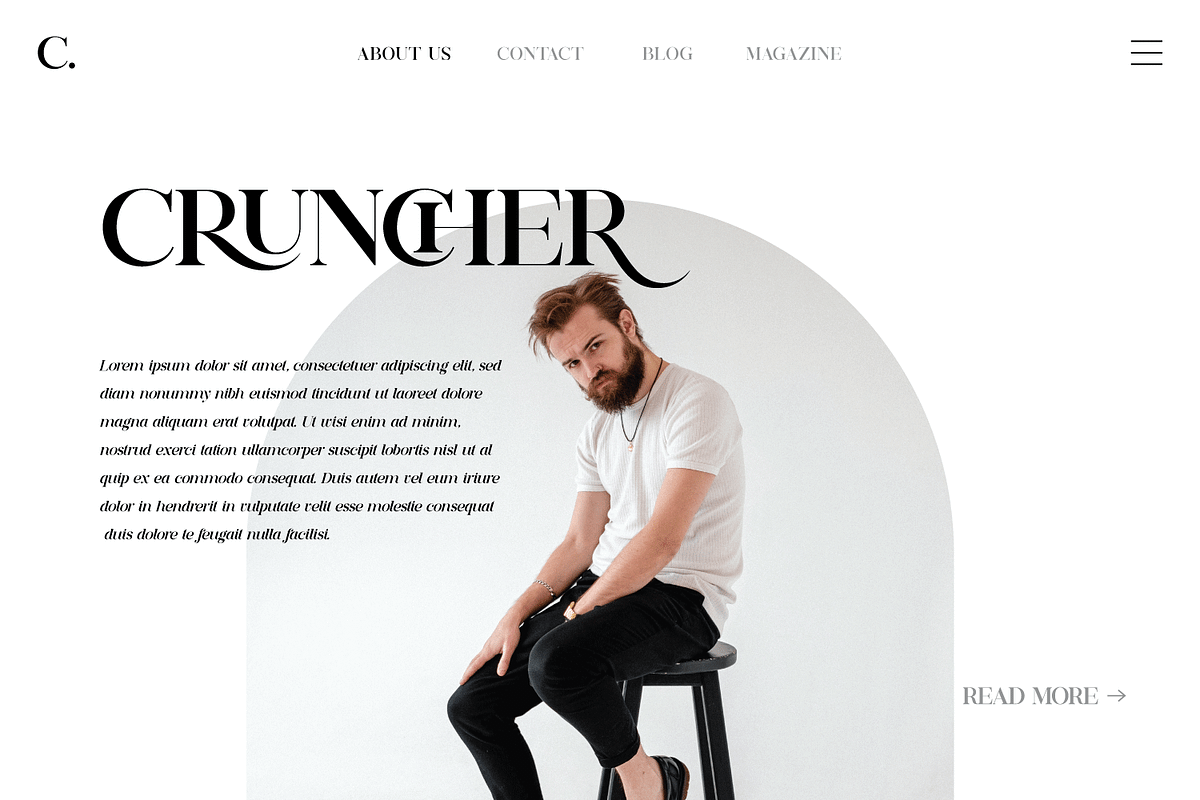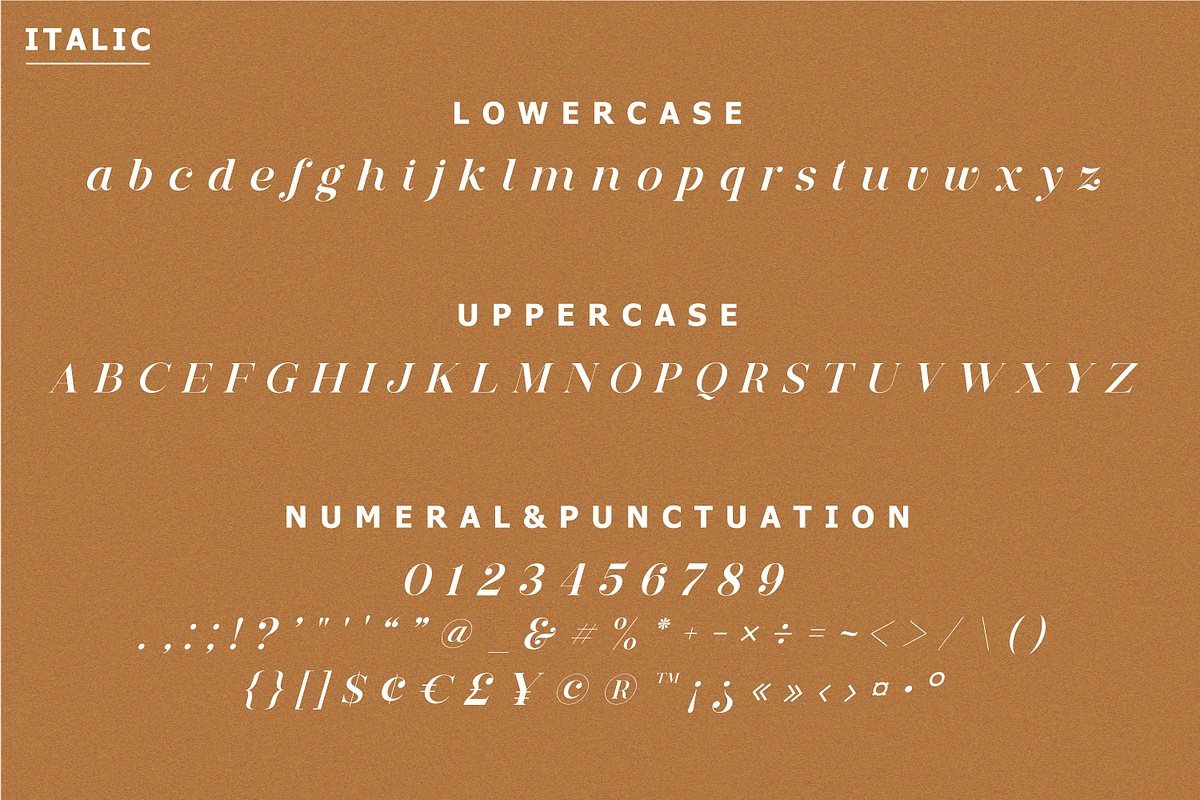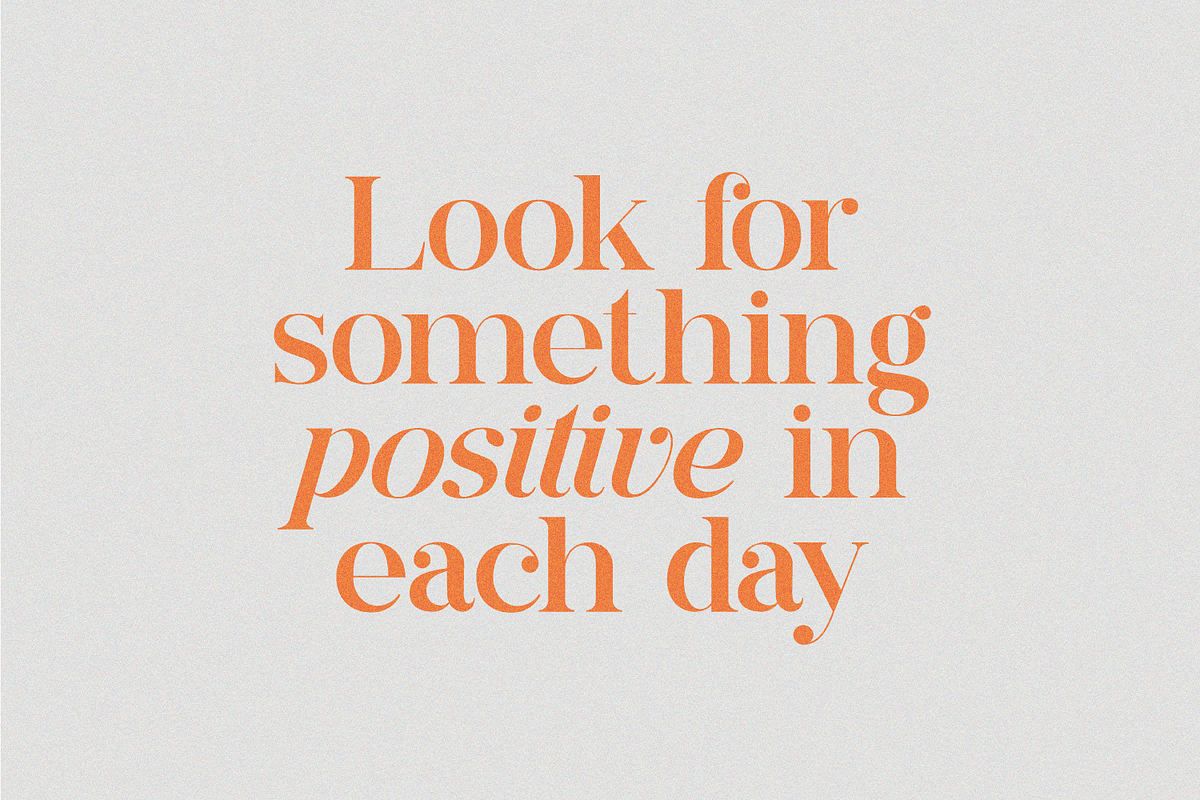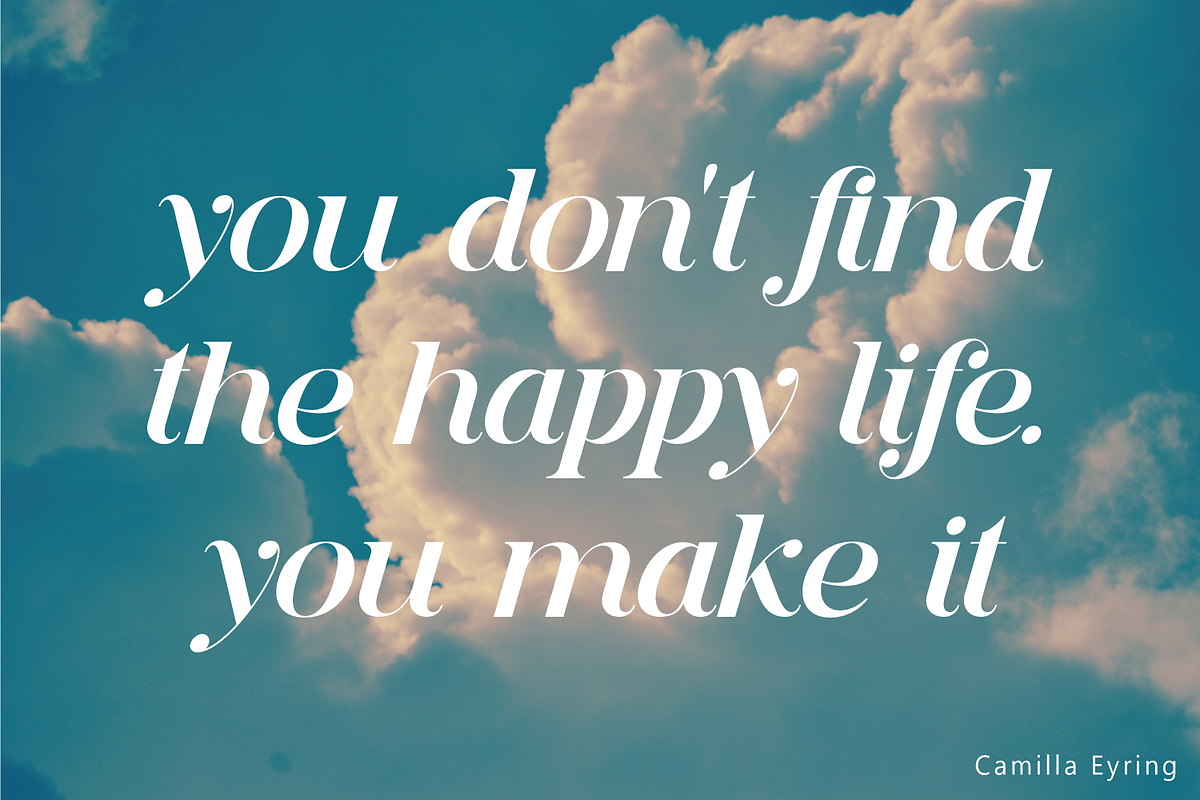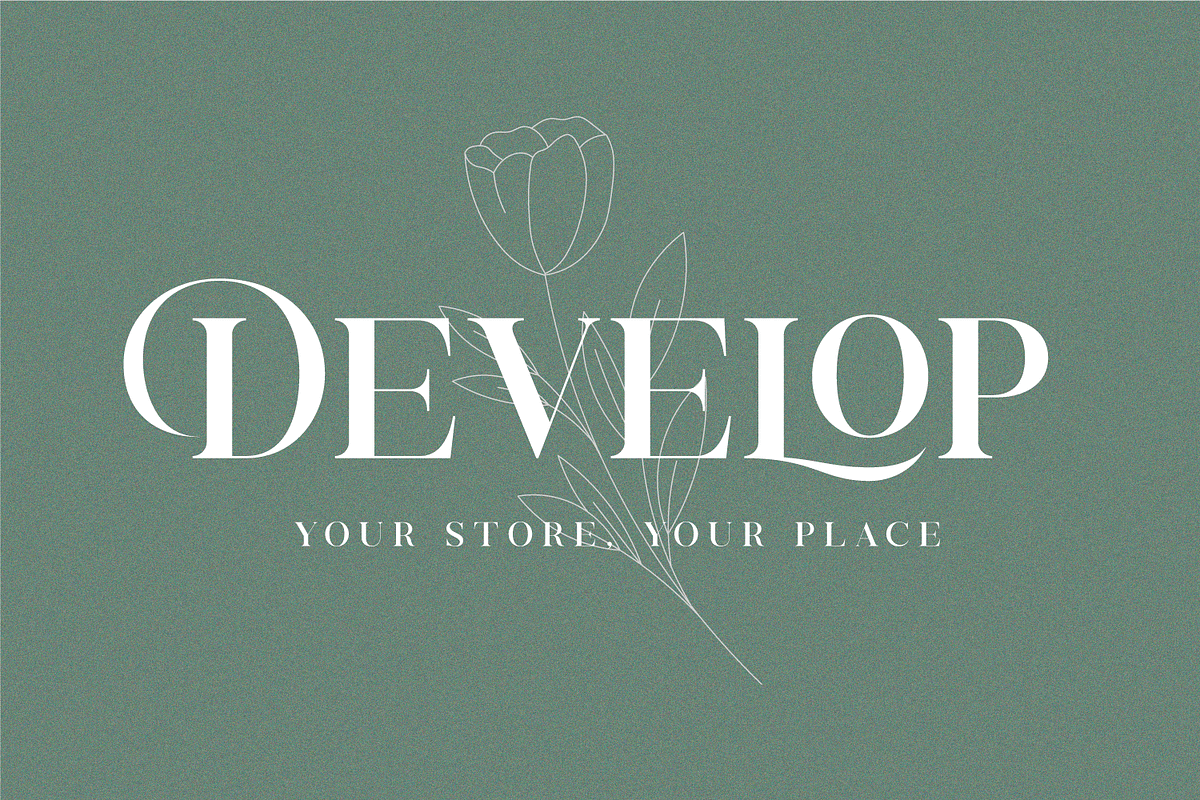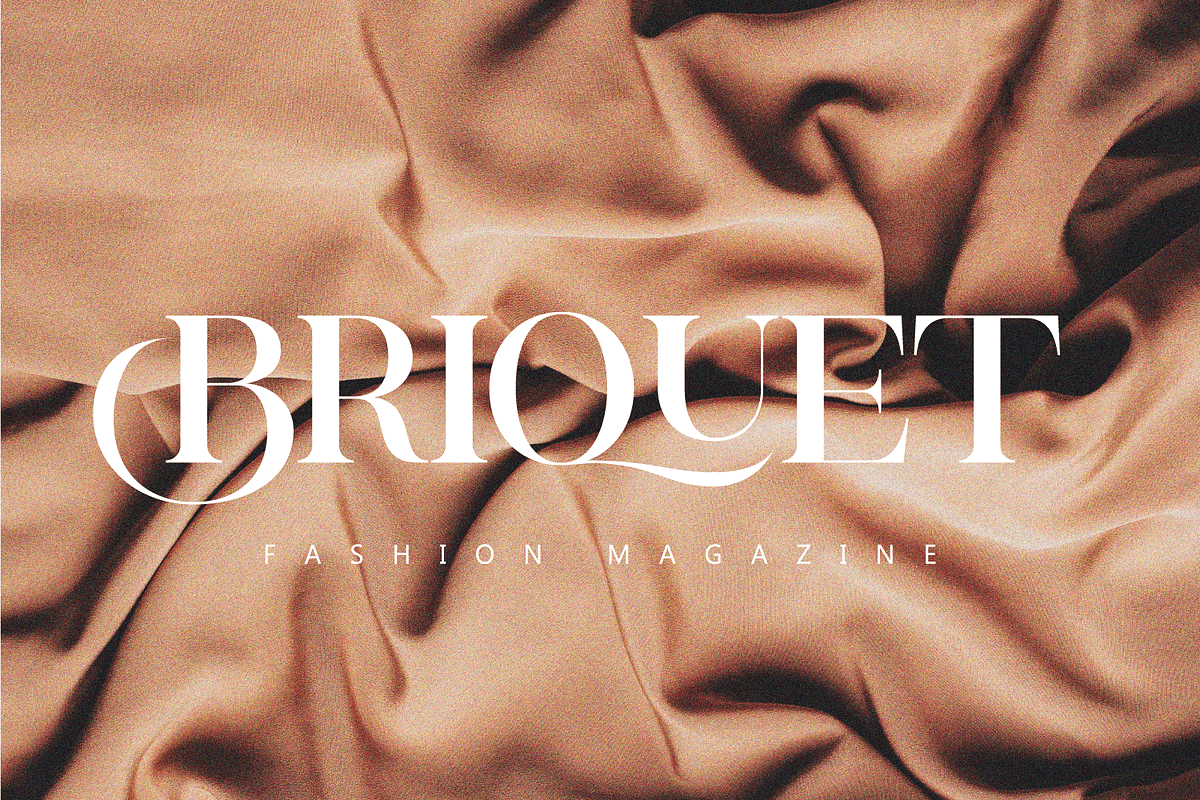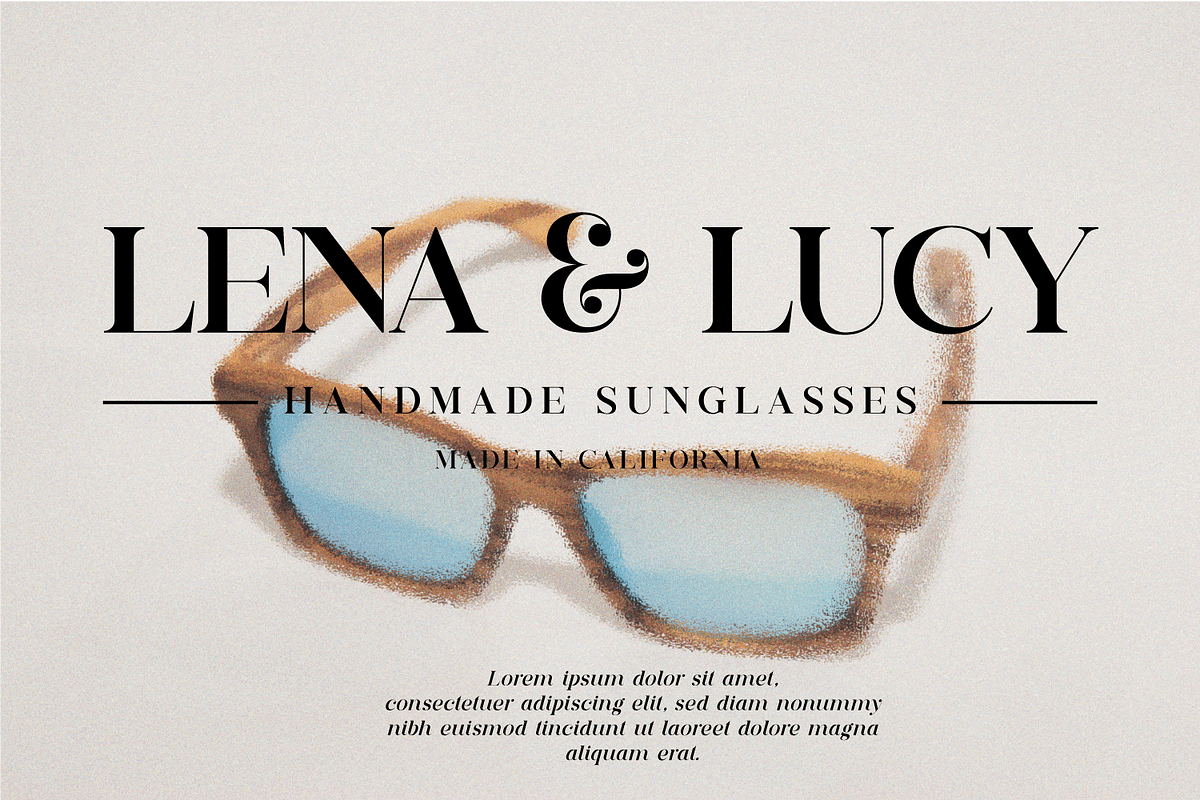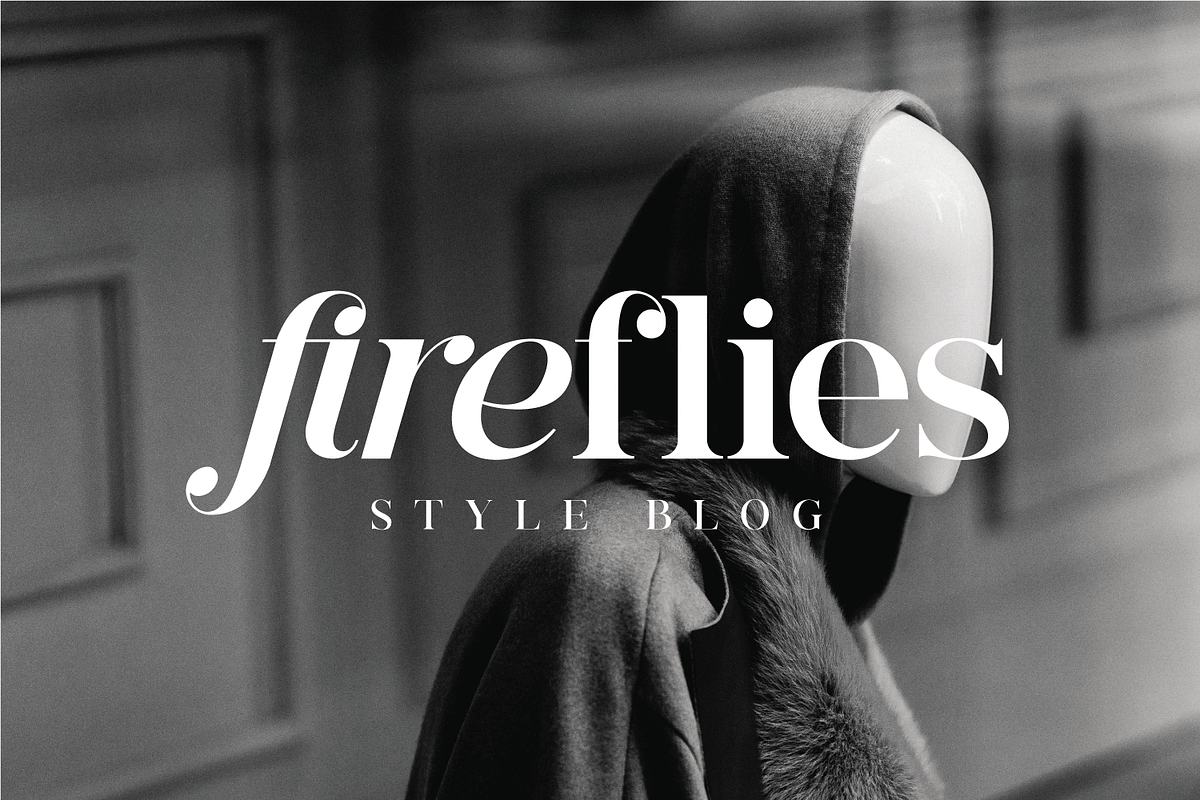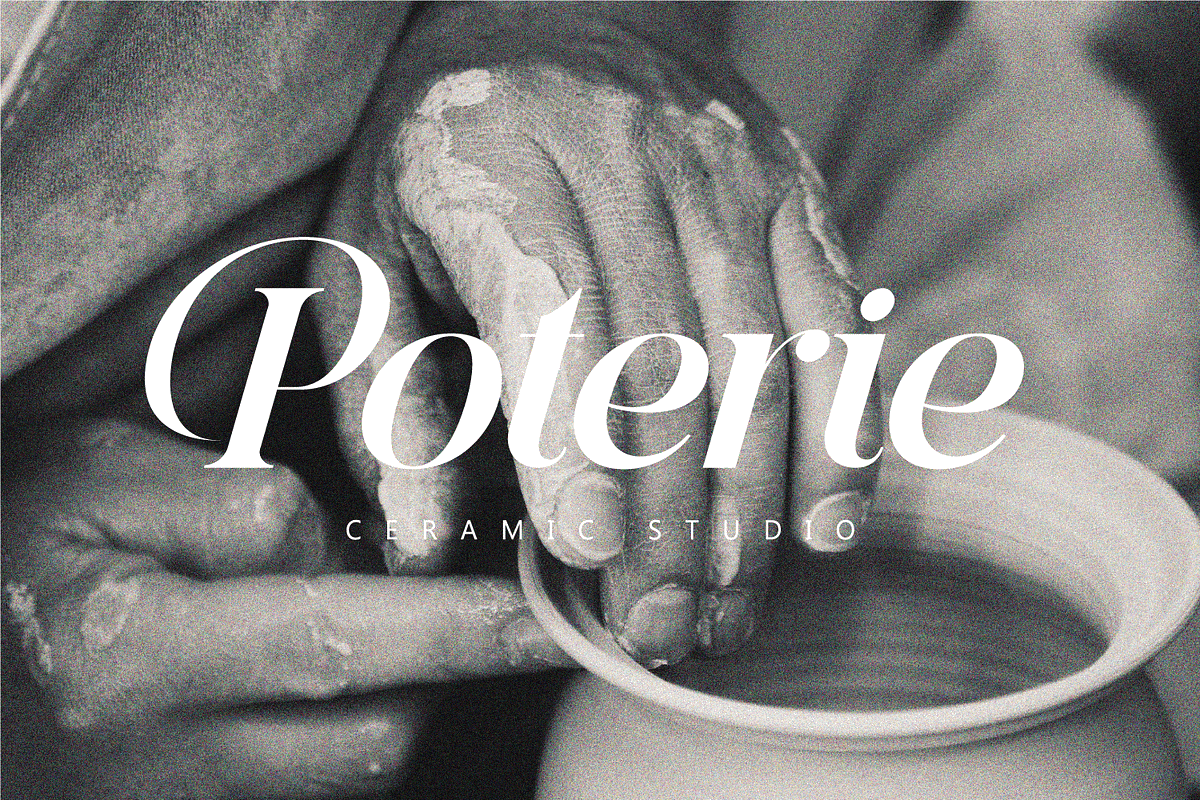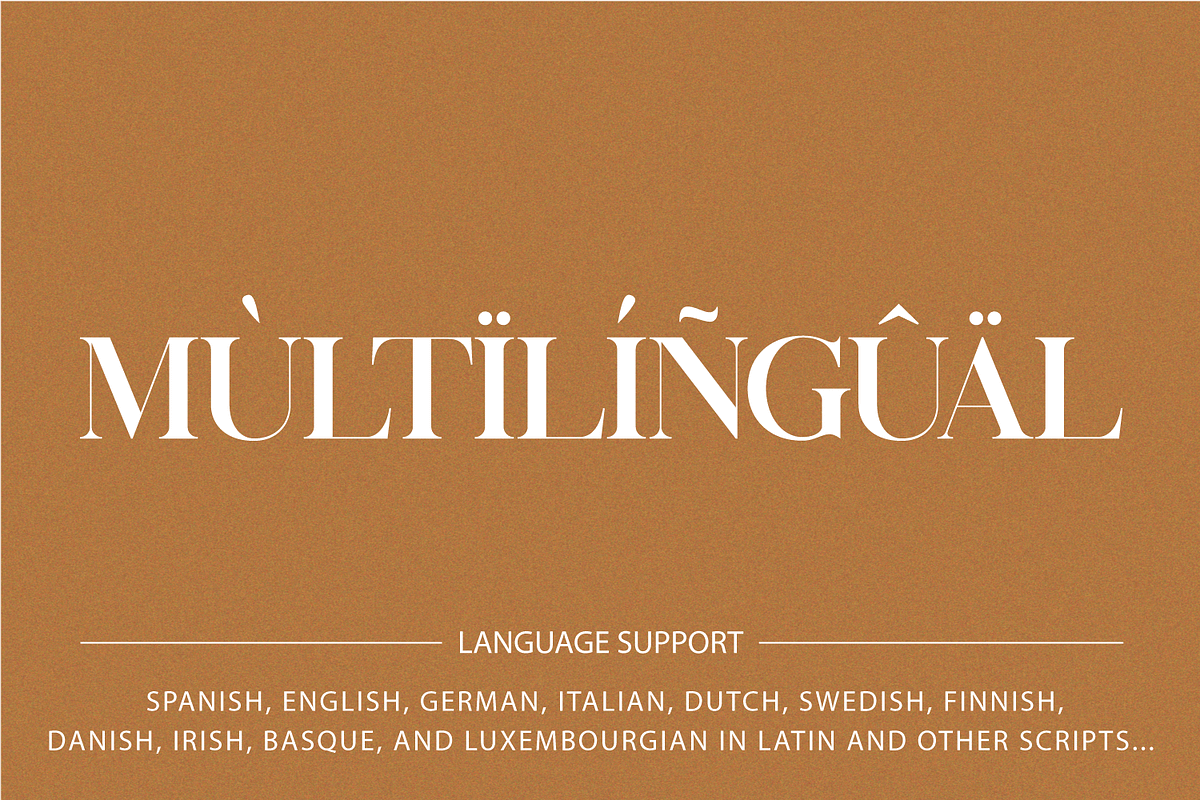
Deroma Serif
Deroma - is an editorial serif font (regular and italic) It beautifully combines a vintage look with a modern flair.
Deroma will be perfect for many projects: logo, wedding designs, social media posts, advertisements, product packaging, product designs, label, photography, watermark, invitation, or whatever project you’re working on.
- Deroma Regular (uppercase & lowercase)
- Deroma Italic (uppercase & lowercase)
- Ligature & Huge Stylistic alternate
- Multilingual support.